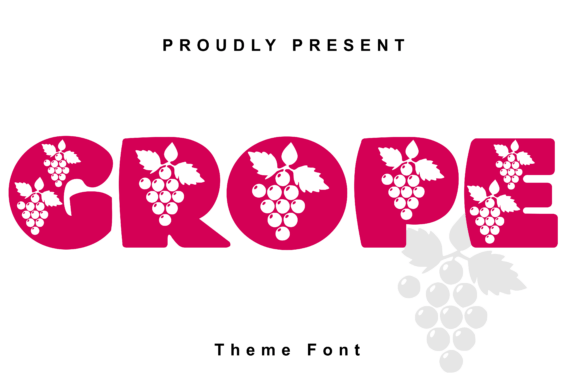
Introducing Grope Font: The Deliciously Bold Theme Font for Food and Beverage Branding
In the world of typography, fonts play a crucial role in conveying the tone and personality of a brand. For businesses in the food and beverage industry, a font that is both visually appealing and effectively communicates the brand’s message is essential. This is where Grope Font comes in – a deliciously bold theme font that is sure to make a statement. In this article, we’ll take a closer look at Grope Font, its features, and how it can be used to elevate your brand’s visual identity.
What is Grope Font?
Grope Font is a unique and eye-catching font that features vibrant grape cluster illustrations for each letter. This bold theme font is perfect for businesses that want to add a touch of playfulness and whimsy to their branding. The font’s design is inspired by the luscious and juicy texture of grapes, making it an ideal choice for food and beverage branding, fruit packaging, vineyard marketing, or kids’ nutrition products.
Key Features of Grope Font
- Deliciously Bold Design: Grope Font features a bold and attention-grabbing design that is sure to stand out in any design project.
- Vibrant Grape Cluster Illustrations: Each letter in the font is decorated with vibrant grape cluster illustrations, adding a touch of playfulness and whimsy to the design.
- Juicy Charm: The font’s design is inspired by the luscious and juicy texture of grapes, making it perfect for food and beverage branding.
- Versatile: Grope Font can be used for a variety of design projects, including food and beverage branding, fruit packaging, vineyard marketing, or kids’ nutrition products.
Use Cases for Grope Font
Grope Font is a versatile font that can be used for a variety of design projects. Here are some use cases where Grope Font can be used:
- Food and Beverage Branding: Grope Font is perfect for food and beverage businesses that want to add a touch of playfulness and whimsy to their branding.
- : The font’s design is inspired by grapes, making it an ideal choice for fruit packaging.
- Vineyard Marketing: Grope Font can be used for vineyard marketing materials, such as wine labels, brochures, and website designs.
- Kids’ Nutrition Products: The font’s playful design makes it perfect for kids’ nutrition products, such as packaging for fruit snacks or children’s vitamins.
Benefits of Using Grope Font
Using Grope Font for your design project can have several benefits. Here are some of the advantages of using Grope Font:
- Unique and Eye-Catching Design: Grope Font features a unique and eye-catching design that is sure to stand out in any design project.
- Increases Brand Recognition: The font’s playful design can help increase brand recognition and make your brand more memorable.
- Versatile: Grope Font can be used for a variety of design projects, making it a versatile font to have in your design arsenal.
- Easy to Read: Despite its bold design, Grope Font is easy to read, making it perfect for use in a variety of design projects.
How to Use Grope Font
Using Grope Font is easy. Here are some tips on how to use Grope Font for your design project:
- Pair it with a Simple Background: Grope Font features a bold design, so it’s best to pair it with a simple background to make it stand out.
- Use it for Headings: Grope Font is perfect for use in headings, such as titles, subtitles, and section headings.
- Experiment with Colors: The font’s design is inspired by grapes, so it’s best to experiment with colors that complement the grape theme.
In conclusion, Grope Font is a deliciously bold theme font that is perfect for food and beverage branding, fruit packaging, vineyard marketing, or kids’ nutrition products. Its unique and eye-catching design features vibrant grape cluster illustrations for each letter, making it a standout font in any design project. With its versatile design and easy-to-read format, Grope Font is a great addition to any design arsenal.